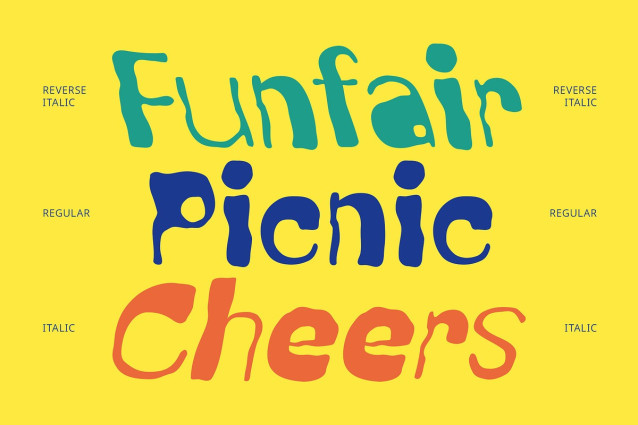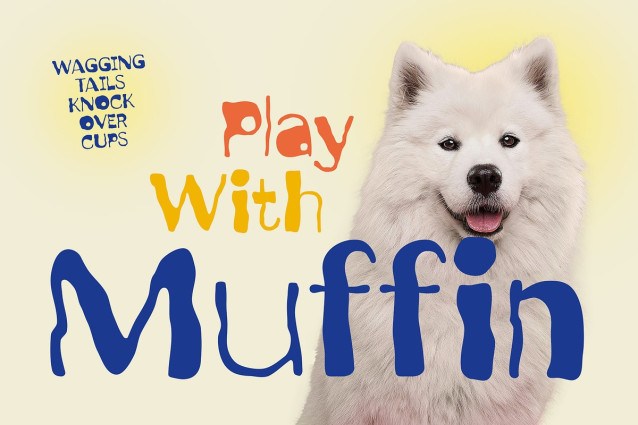
CS Genaro Font
CS Genaro – Etchy Display Font brings a lively spirit to your designs with its etched, handwritten form and quirky shapes. The display font captures a sense of spontaneity and warmth, making every letter feel expressive and full of personality.
Funky Shapes for Creative Energy With its fun, funky curves and irregular strokes, CS Genaro offers a bold yet approachable aesthetic. It’s perfect for projects that embrace creativity and joy, adding a splash of charm to posters, packaging, and lifestyle branding. Filled with funky, expressive forms, CS Genaro is perfect for projects that demand creativity and originality. Its quirky shapes offer a sense of movement and visual rhythm, instantly grabbing attention while keeping things fun. This makes it a fantastic choice for everything from editorial titles to creative posters and packaging.
Charming, Cute, and Casual This font shines in casual contexts, effortlessly conveying a sense of fun and friendliness. Its cute design is ideal for children’s products, cheerful illustrations, or playful branding that seeks to stand out with heart.
Whimsical Touch for Unique Designs Whether you’re designing for art prints, event graphics, or expressive logotypes, CS Genaro delivers a whimsical edge that turns ordinary text into an engaging visual statement. It’s the perfect balance of handcrafted authenticity and vibrant character.